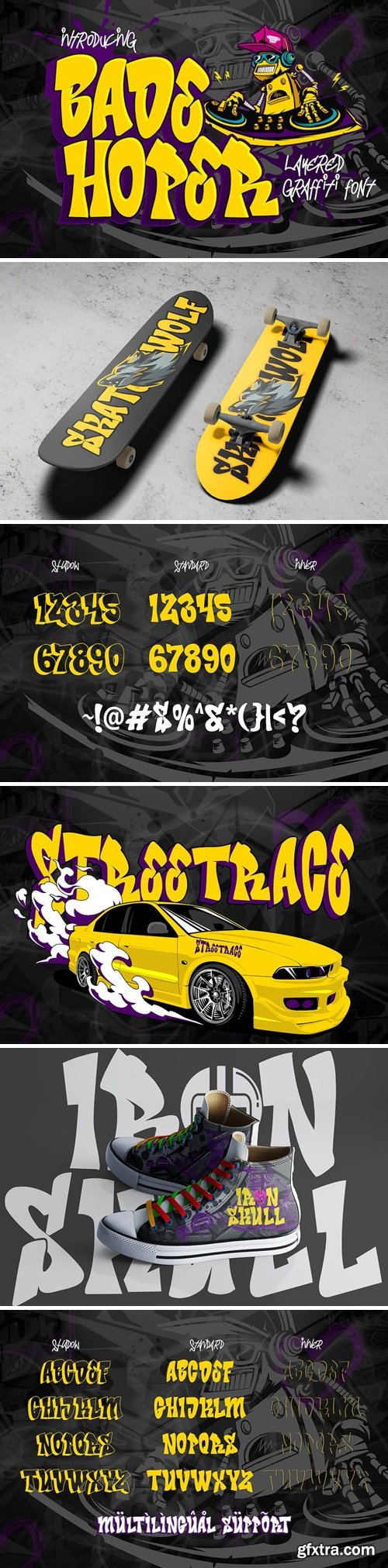
Badé 派[op] - 3D 层叠涂鸦字体
Bade Hoper is a unique and eye-catching layered graffiti font that is designed to add a vibrant and urban touch to any project. With its intricate layers and bold, stylized letterforms, this font captures the essence of graffiti art. Each layer of the font can be stacked to create a dynamic and multi-dimensional effect, allowing for endless customization possibilities. Whether used in digital or print designs, Bade Hoper brings a sense of urban energy and street art aesthetics, making it an excellent choice for logos, posters, album covers, and other creative projects.